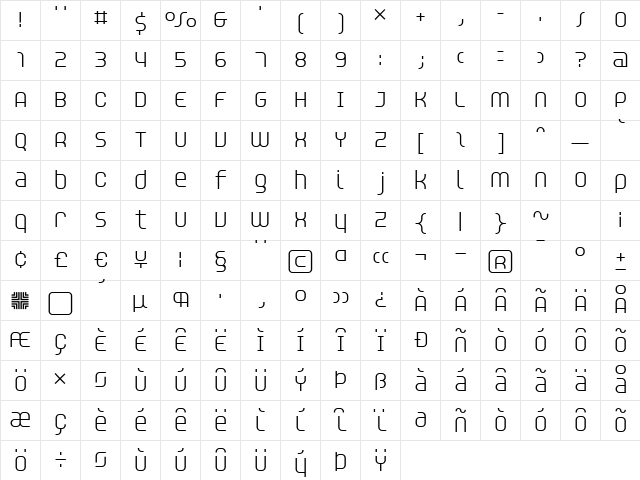
Unisect Regular
Foundry: YouWorkForThem
Designer: Michael Cina
Unisect Family
Design Context for Unisect
Unisect is a composed and adaptable typeface that performs quietly and consistently across a wide range of design contexts.
Who designed the Unisect Regular font?